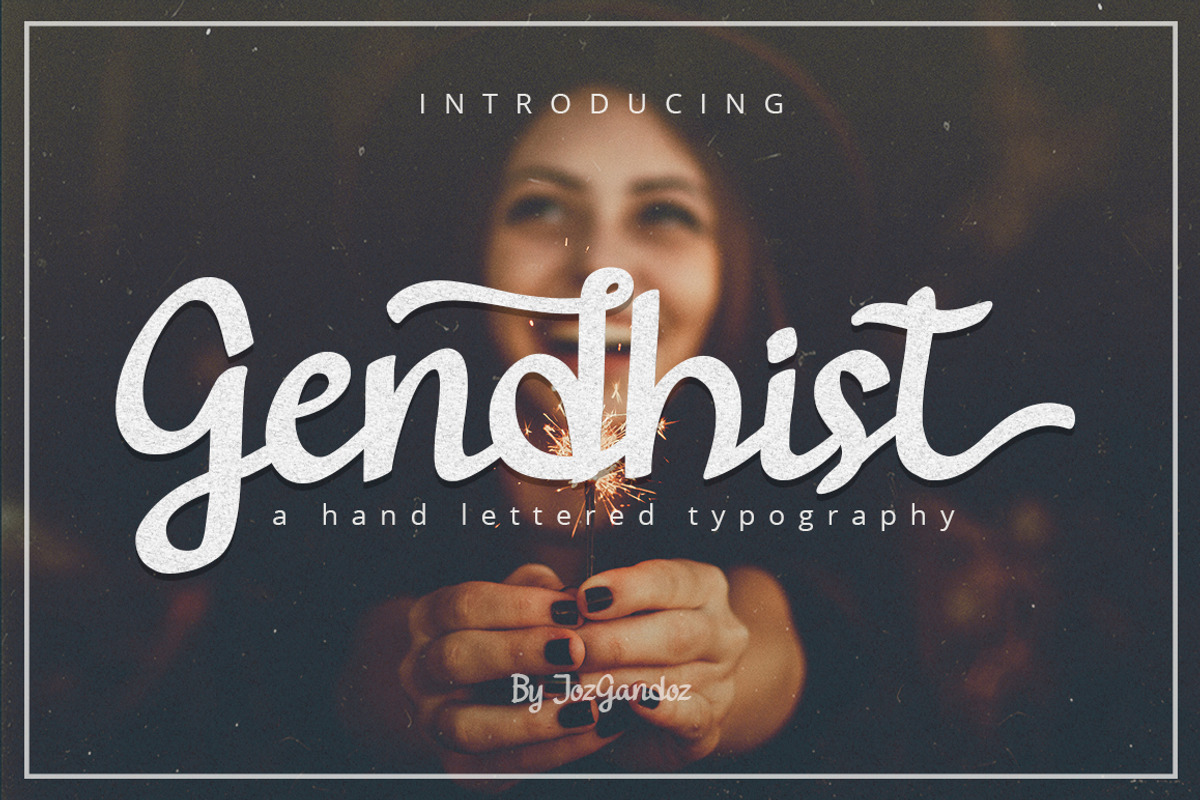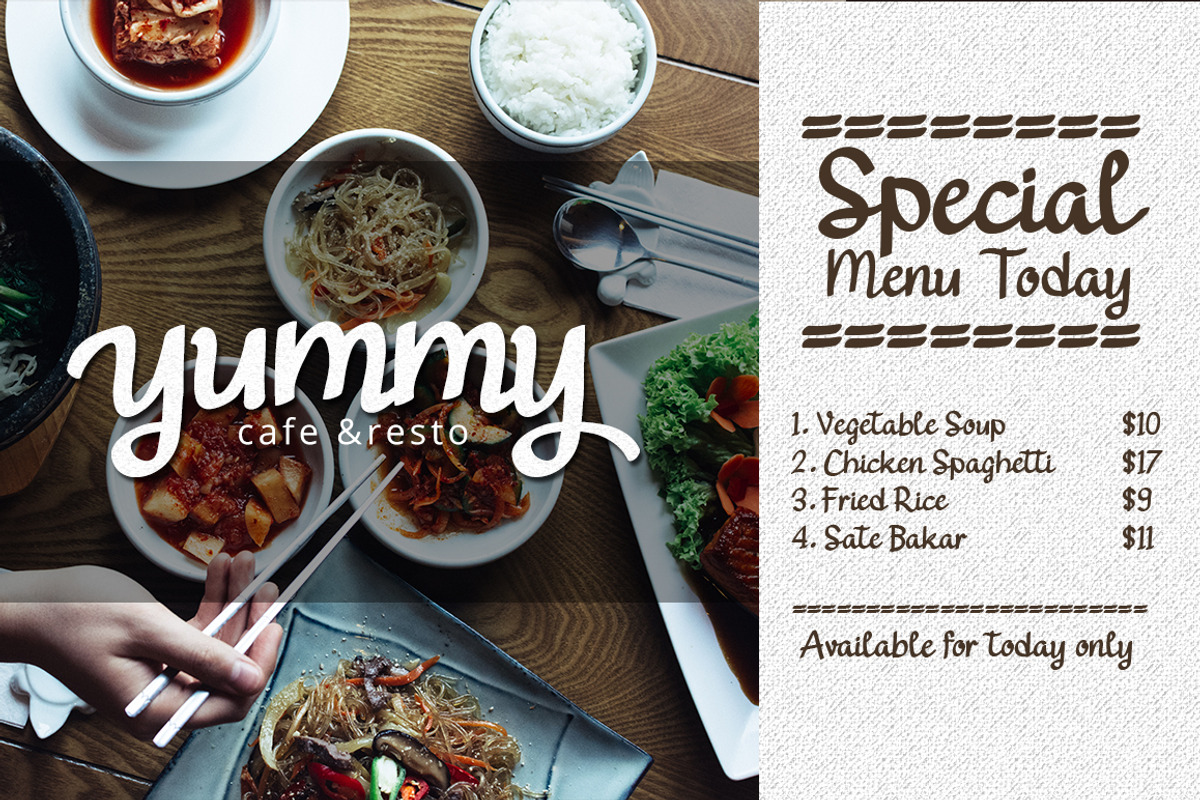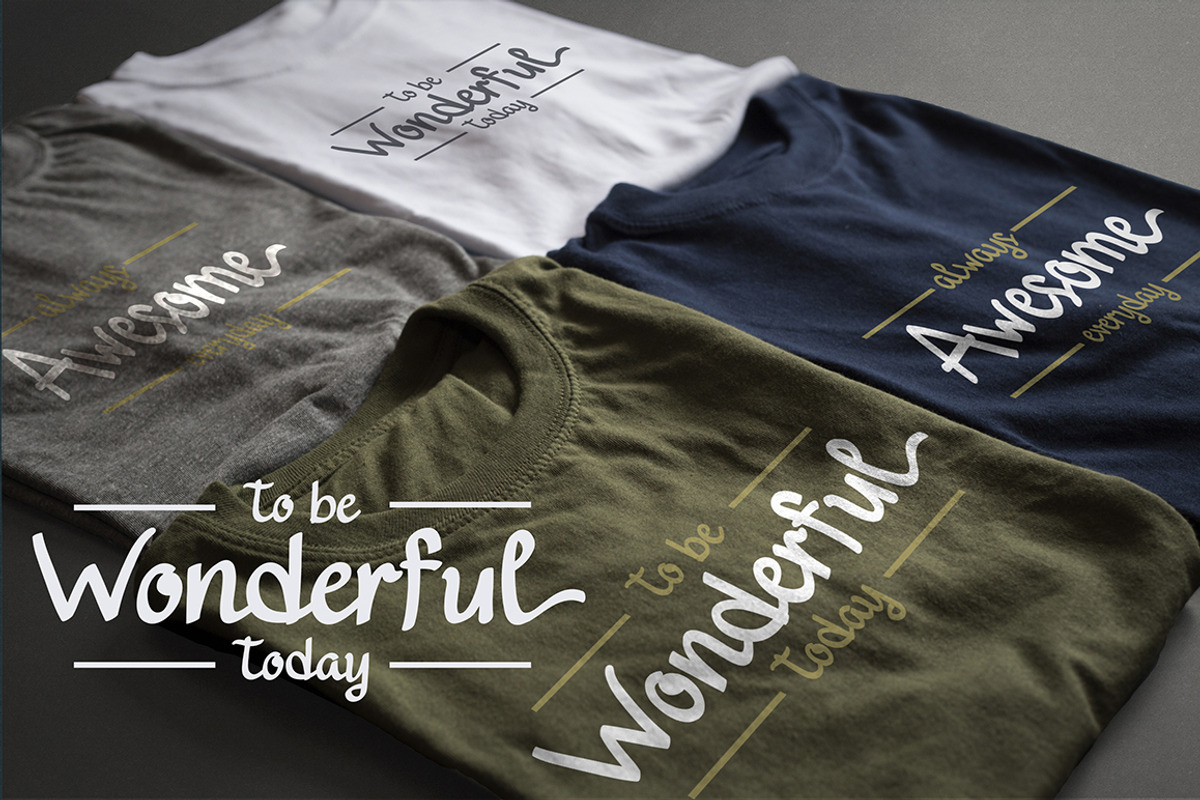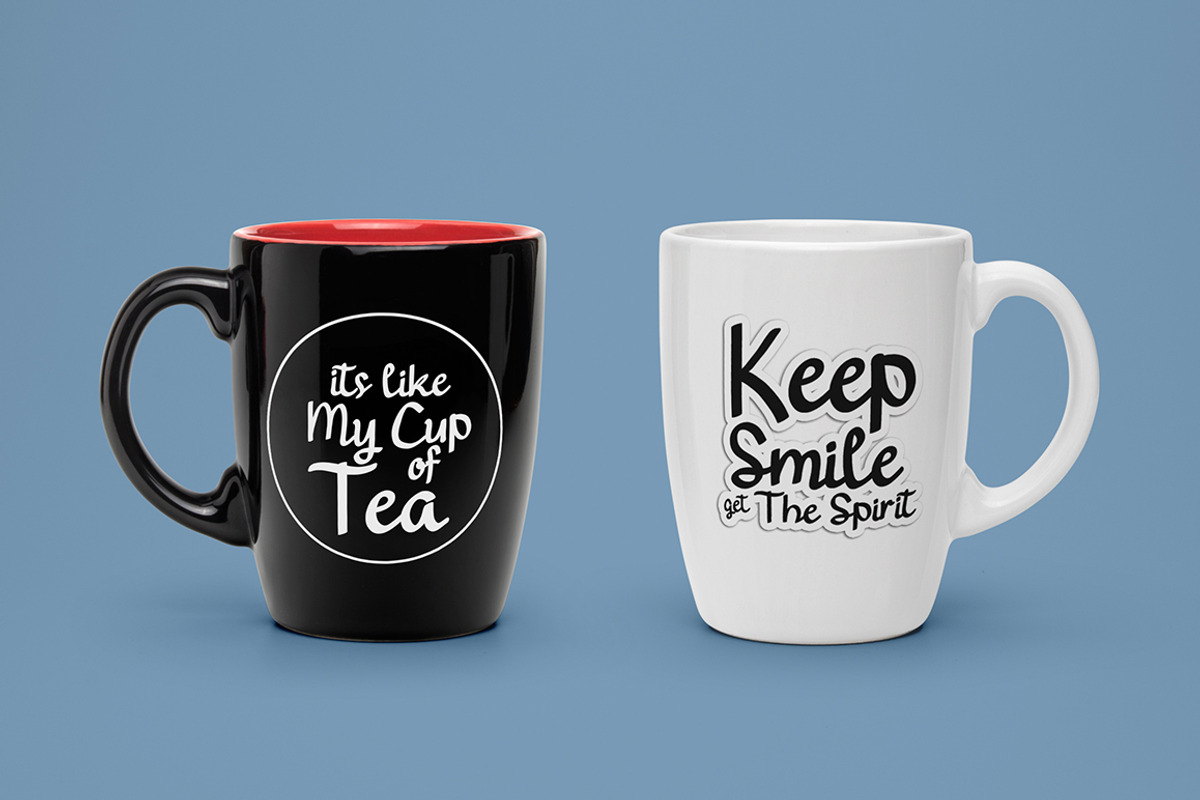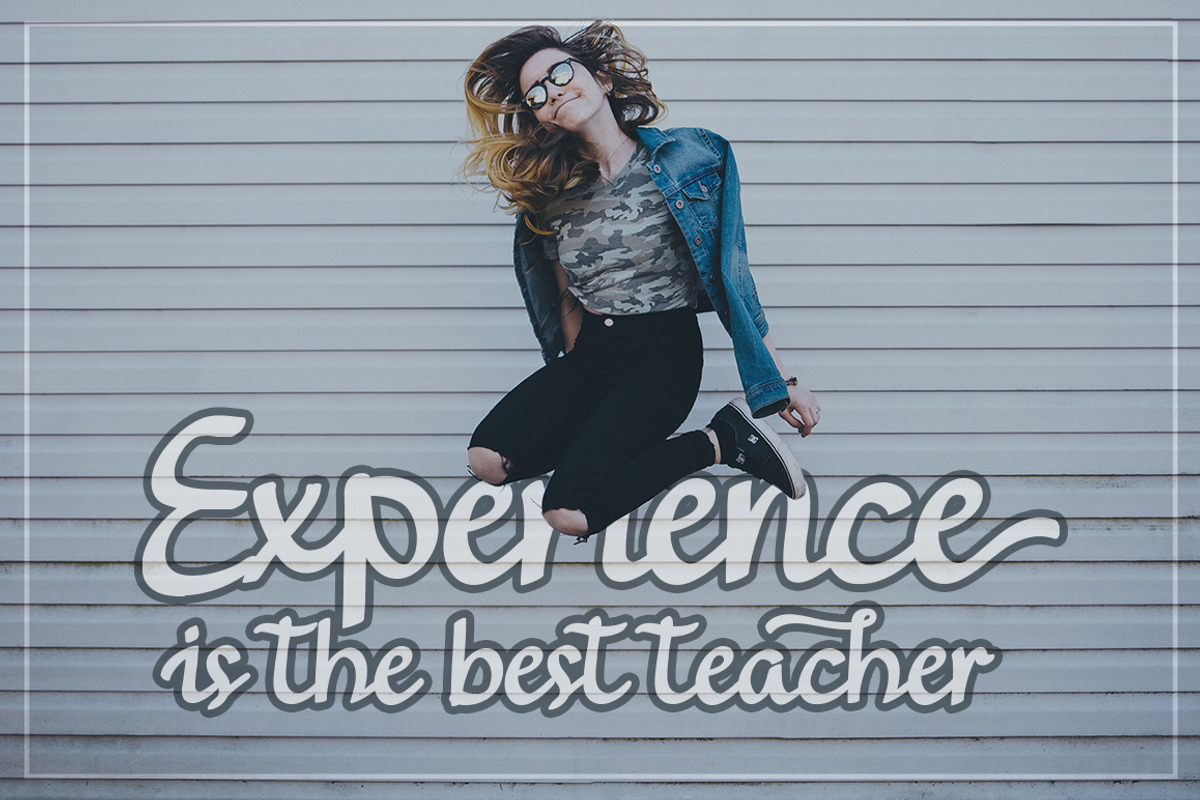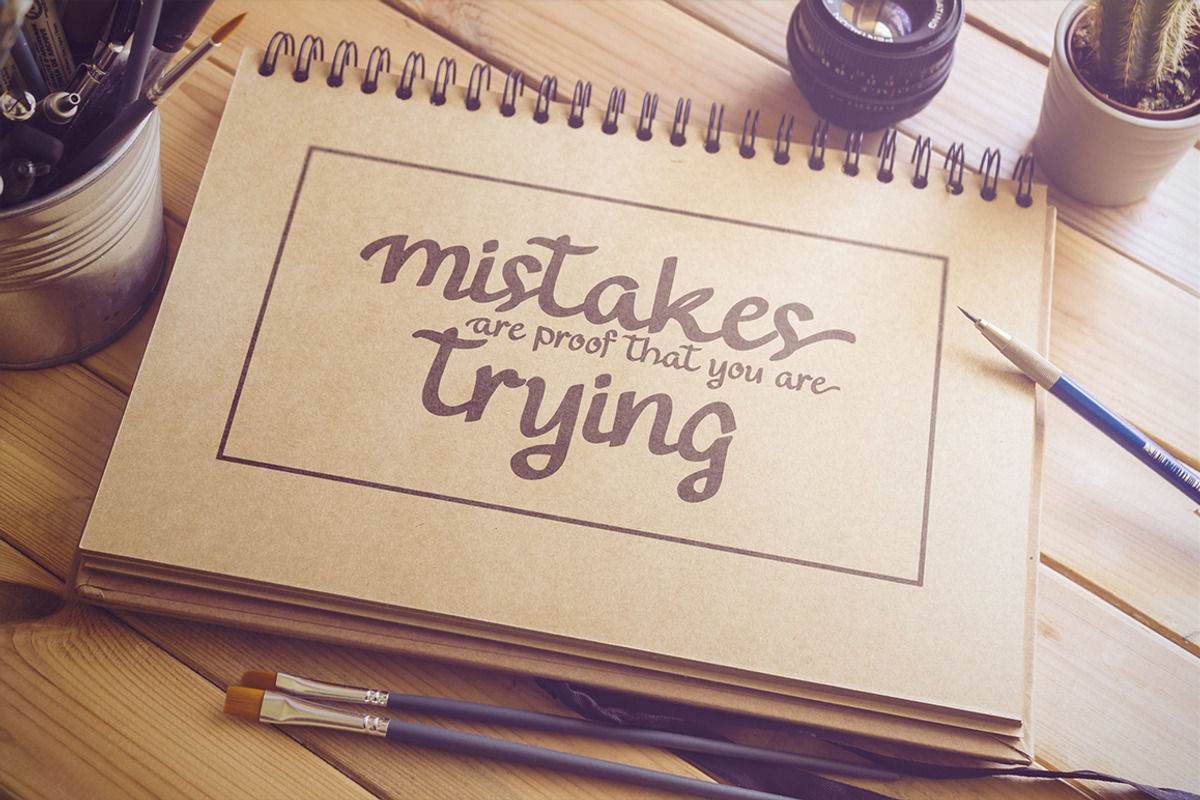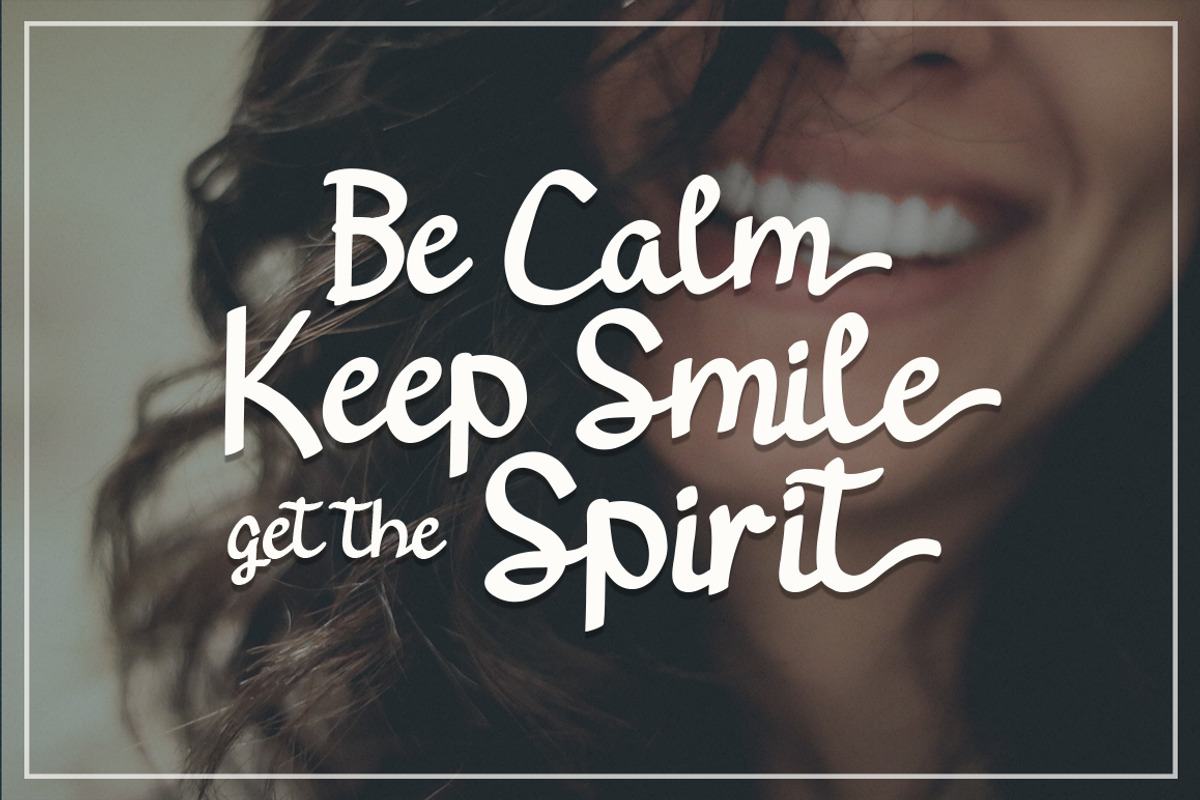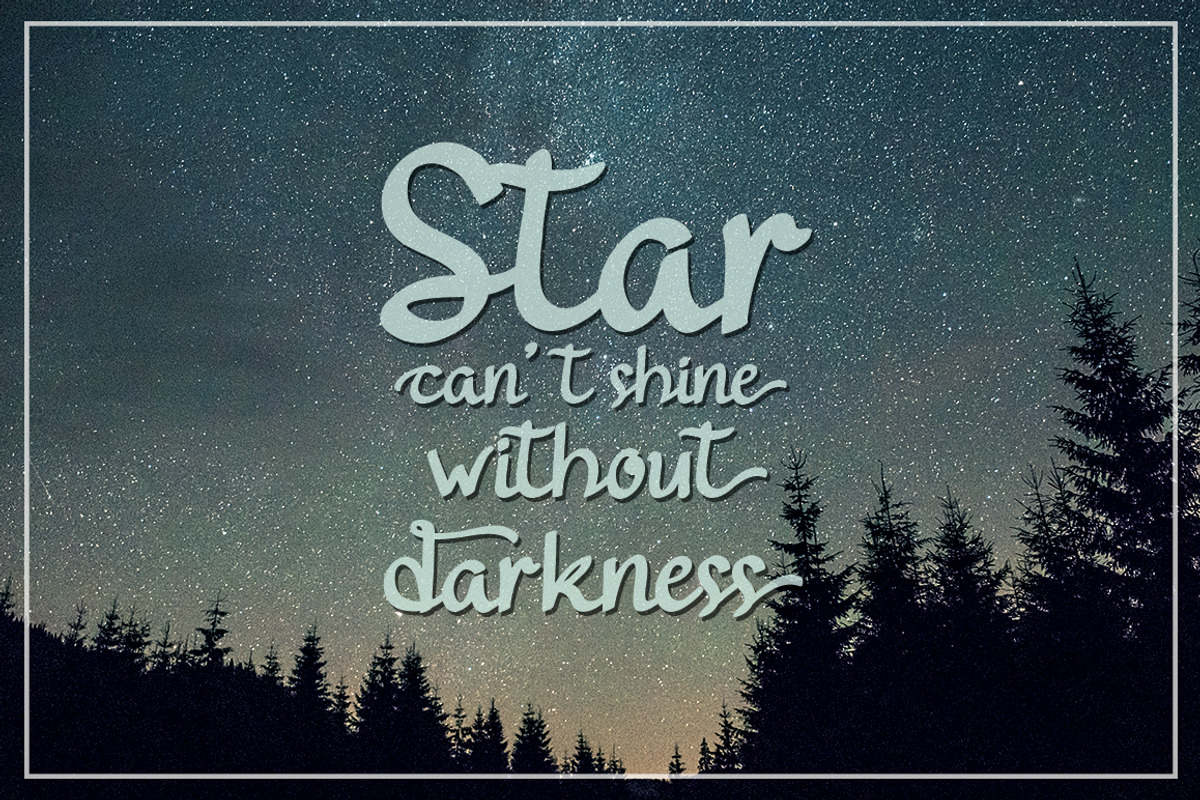
Gendhist Font
Introducing: Gendhist! a simple font, inspired from handwritten font. Gendhist is great for branding design, menu designs, product packaging, quote or simply design with stylish text overlay to any background image.
uppercase & lowercase letters
numbers & punctuation
multi language support
Gendhist Font by LetterJos fits naturally into Branding, posters, packaging, typography.